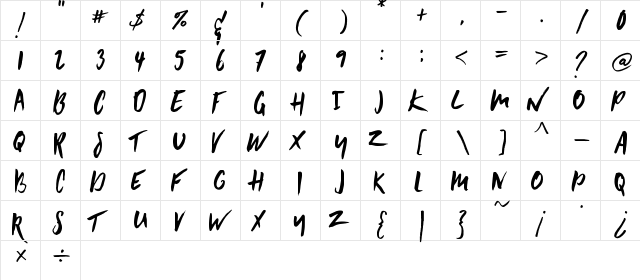
Summer Vibes Regular
Design Context for Summer Vibes Typeface
Summer Vibes is a composed and adaptable typeface that performs quietly and consistently across a wide range of design contexts.